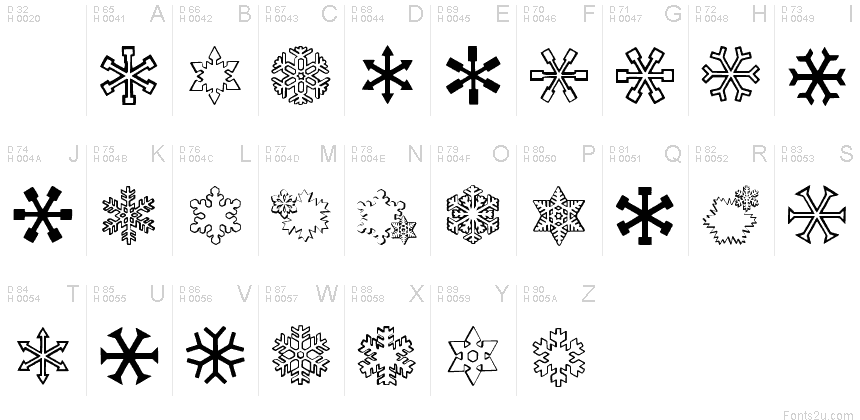
Ryp Sflake8 by Robyn Phillips of Skeldale House Treasures is a free nature dingbat font devoted to snowflake symbols. Each snowflake has a sharply individual silhouette. The collection ranges from open, skeletal forms with squared or forked tips to dense radial shapes, spiky medallions, and a few looser hand-drawn outlines.
Winter weather and seasonal celebrations make these symbols useful for holiday packaging, event posters, greeting cards, and craft merchandise, with enough variety to build borders or repeating patterns. In publishing, the flakes can mark chapter breaks, frame recipe pages, or become recurring ornaments in a winter activity book.